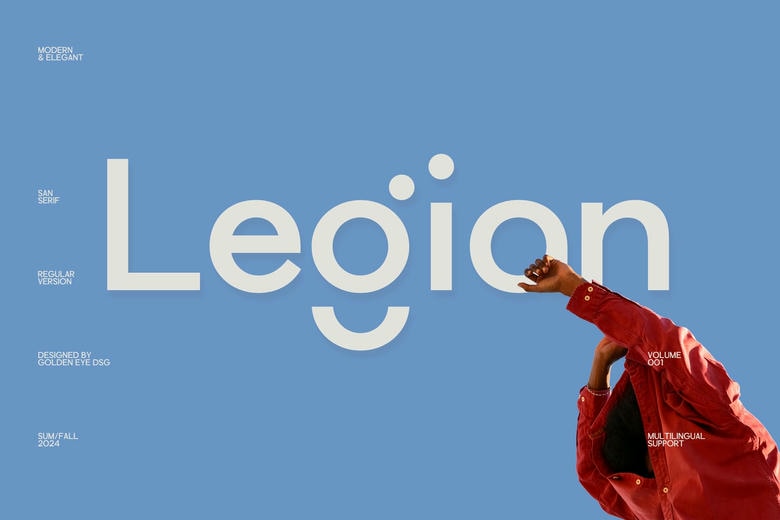
Legian Font
Introducing our new Legian, contemporary sans serif typeface with exquisite look it is ideal for branding, logos, invitations, magazines, product and package designs etc. Not only does it look all smart, but it also seems to be cute.